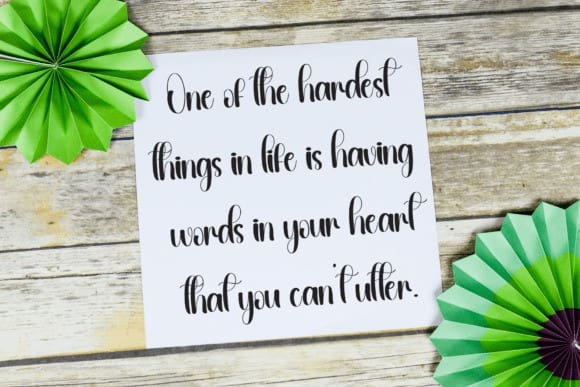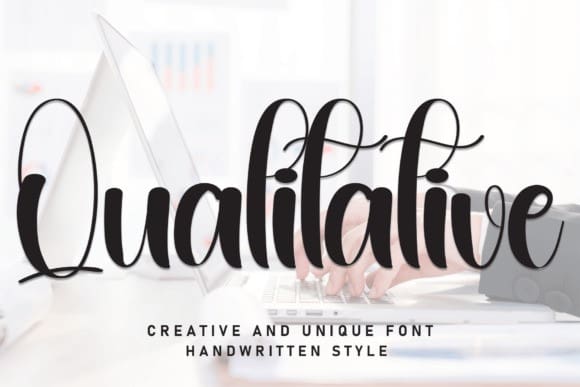
Qualitative Script Font
Qualitative Script Font is a sweet and friendly handwritten font. Fresh and cute, this font is ideal for writing wedding invitations, cards, or any other design that might need a fun touch!